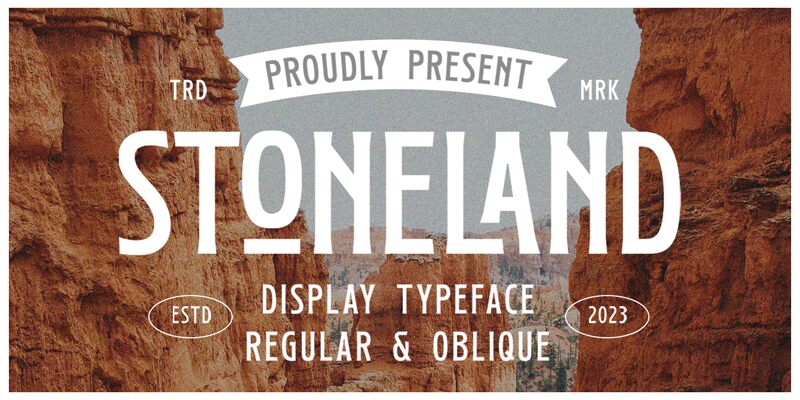
Stoneland font by Letterhend Studio is a captivating retro display font designed with a distinct condensed style. It exudes a nostalgic charm that's perfect for creating striking headlines and vintage-inspired designs.
Its unique character and bold presence make it ideal for branding, poster design, and advertisements that aim to stand out. Download this free font to add a touch of classic elegance to your projects. Whether used in digital or print media, Stoneland font delivers an aesthetic appeal that resonates with both modern and timeless styles.
Perfect for graphic designers seeking a blend of retro flair and contemporary functionality, this font will elevate your creative projects effortlessly.